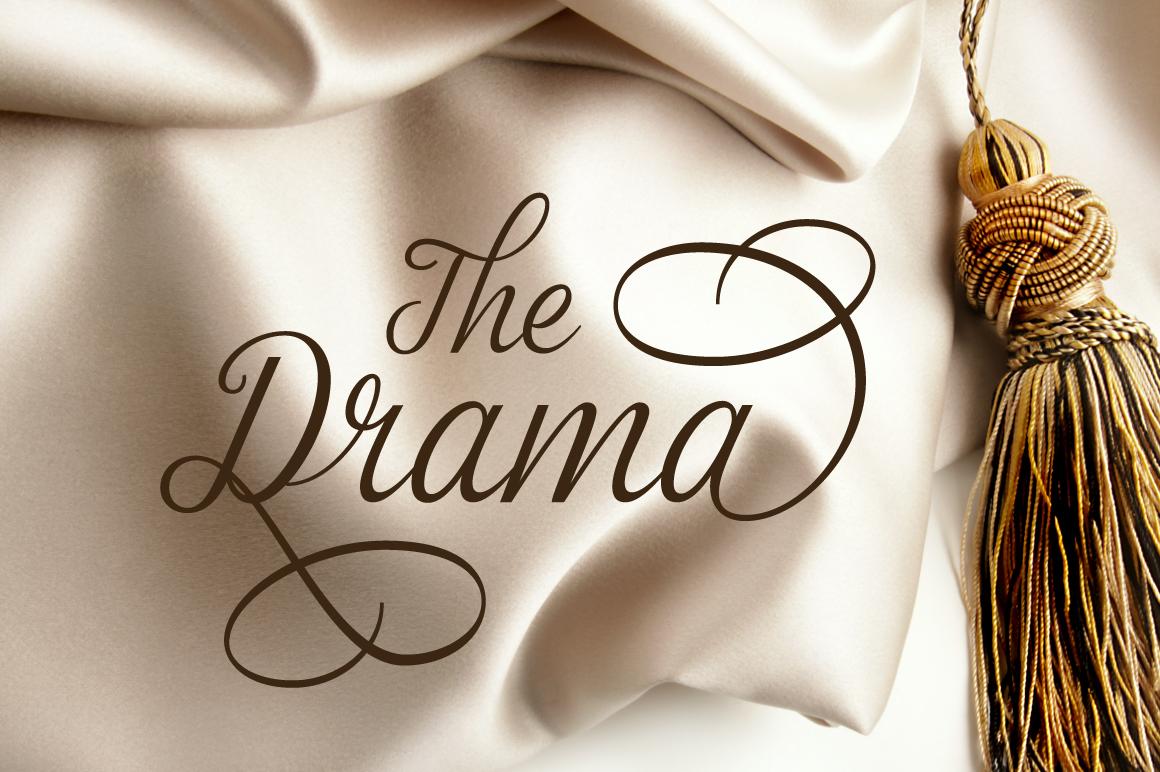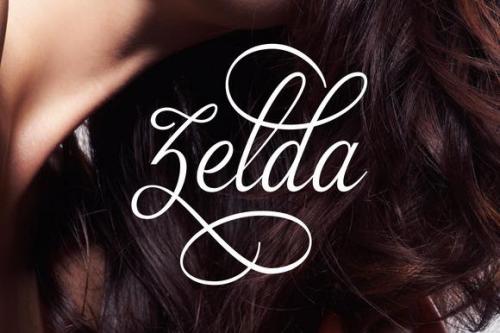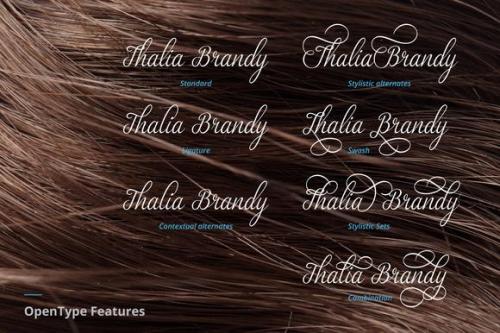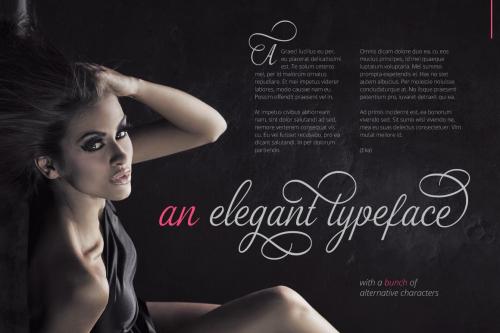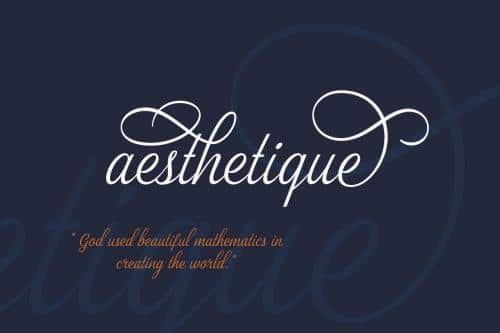
Zelda is a script font with clear characteristics: Feminism & elegant. It is a classy typeface for multipurpose usage: from greeting card, editorial, branding, wedding invitation, etc.
- Designer: Artimasa